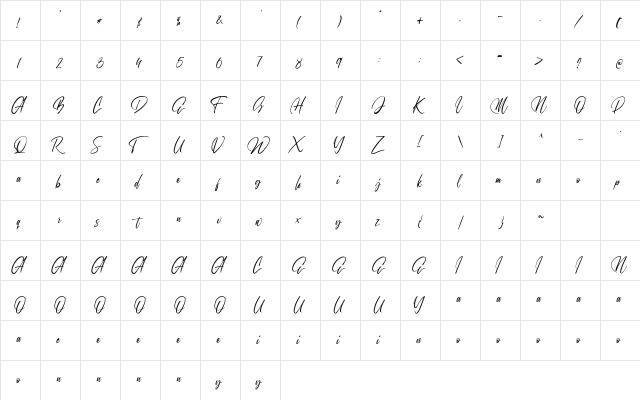
Onebillion Script Regular
Onebillion Script brings a calligraphic fluidity to the page — its connecting strokes and expressive curves give it an unmistakably human quality.
Font Pairing: Combine Onebillion Script with a simple geometric sans for maximum contrast — the tension between flowing curves and clean structure is a classic typographic pairing.
Pro Tip: Pair Onebillion Script with a clean sans-serif for supporting text. The contrast between fluid script and geometric structure creates an elegant typographic hierarchy.